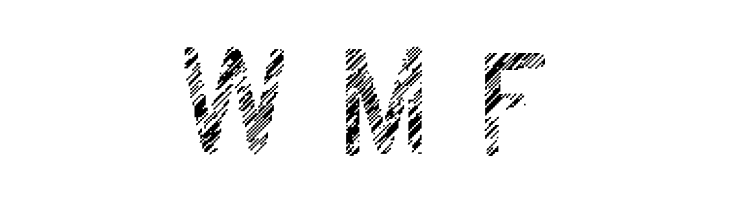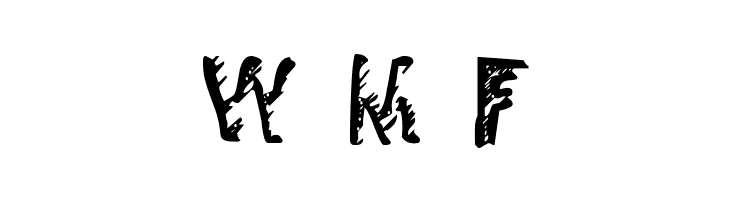
A bold, distressed font with a grunge, industrial style.
A bold, distressed font with a grunge, textured style.
A bold, distressed font with a rugged, industrial appearance.
A bold, distressed font with a grunge aesthetic and rugged texture.
A bold, distressed font with a grunge texture and rugged appearance.
A distressed, vintage-style font with a worn, gritty texture.
A bold, distressed font with a vintage, Western saloon aesthetic.
A bold, distressed font with a vintage, industrial style.
A bold, distressed stencil-style font with a vintage, industrial feel.
A bold, distressed font with a cracked texture and decorative style.
A bold, distressed font with a vintage, grunge aesthetic.
A bold, distressed font with a vintage Western style.
A distressed, grungy font with bold and textured characters.
A bold, textured font with a dynamic, brush-like appearance.
A distressed serif font with a fragmented, aged appearance.
A bold, distressed italic font with a rugged, grunge aesthetic.
A bold, distressed font with a grunge, textured appearance.
A distressed, vintage-style font with bold, textured characters.
A bold, distressed font with a grunge texture and irregular edges.
A bold, distressed font with a rugged, vintage texture.
A bold, distressed font with a vintage, textured style.
A bold, distressed font with a rugged, vintage aesthetic.
A bold, distressed font with a vintage Western feel.
A bold, distressed font with a vintage Old West aesthetic.
A bold, italicized font with a distressed, Old West style.
A rugged, textured font with a vintage, woodcut print style.
A bold, distressed font with a rugged, grunge appearance.
A distressed, vintage-style font with a rugged, textured appearance.
A bold, distressed font with a rugged, grunge aesthetic.